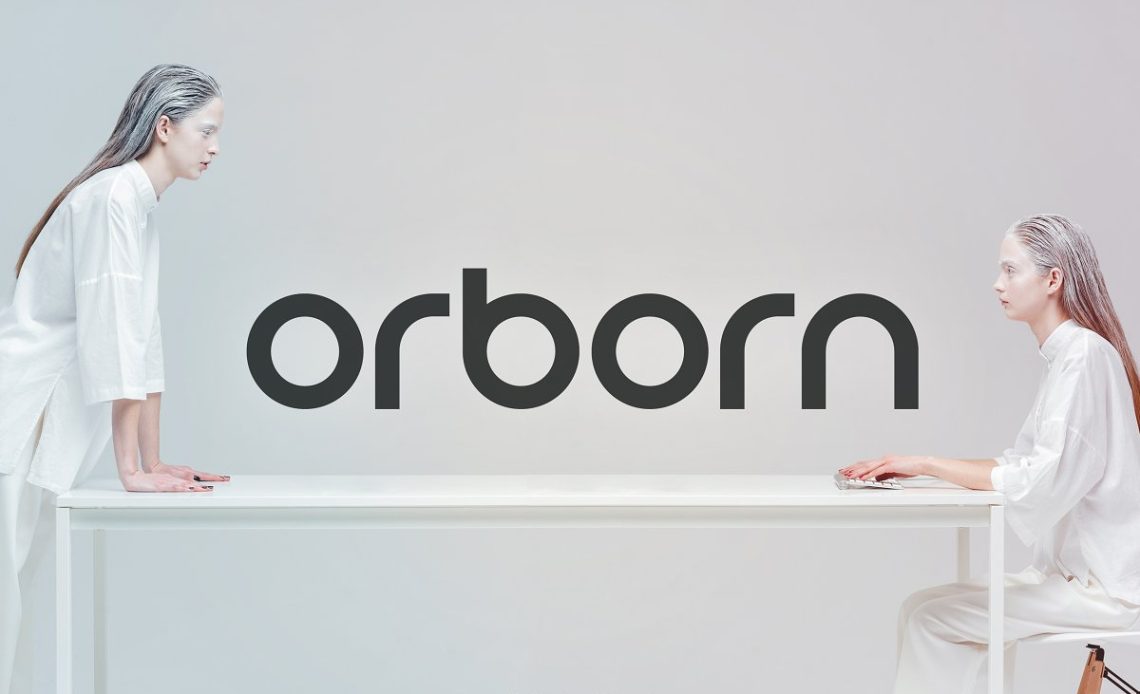
Are you tired of using the same boring fonts for your designs? Look no further than Orborn - Round Futuristic Font, a stunning font developed by Nikola Nikolov that will take your lettering to the next level.
Orborn is a round geometric experimental font that is perfect for logos, headlines, titles, and posters. With its pronounced futuristic vision, this font is perfect for modern designs, while also fitting in seamlessly with retro aesthetics.
At the base of the font is the circle, which is present in every glyph, ensuring that the proportions are consistent throughout. This unique design approach results in an interesting, yet highly readable font that is sure to captivate your audience.
Orborn includes a range of features to elevate your designs, including all caps and small caps, ligatures, symbols, and punctuation. With a total of 174 glyphs, you'll have everything you need to create stunning designs that stand out from the crowd.